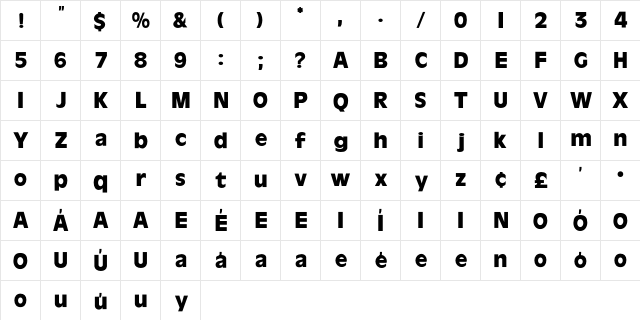
Niagara Regular
Design Context for Niagara Typeface
Niagara offers clean, dependable letterforms without strong stylistic allegiance, making it a practical choice for designers who need flexibility.
Pro Tip: Use Niagara in both headline and body roles to test its range before committing to a single application.